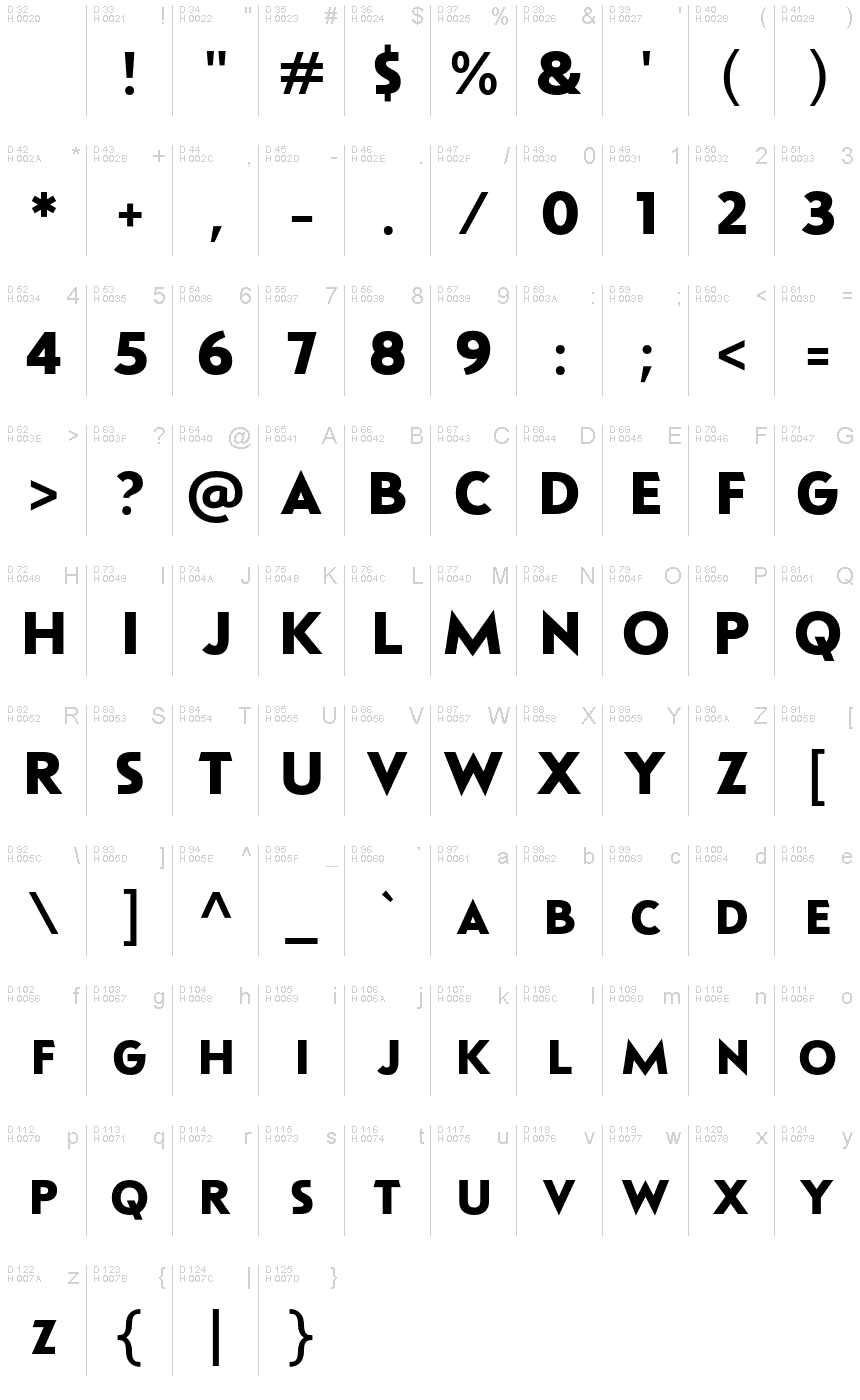
Motivion-Regular
Motivion, the remarkable semi-bold sans serif font created by Faqih Fawaji, is the perfect tool to elevate your designs to new heights. With its clean and modern lines, this font is versatile enough to be used in various projects like branding, packaging, headlines, and more. Its semi-bold weight is ideal for creating bold statements that demand attention without being overwhelming. You can use Motivion for both print and digital materials to create a consistent look that captivates your audience. So whether you're designing a website or a business card, Motivion will add a touch of sophistication and elegance to your project.